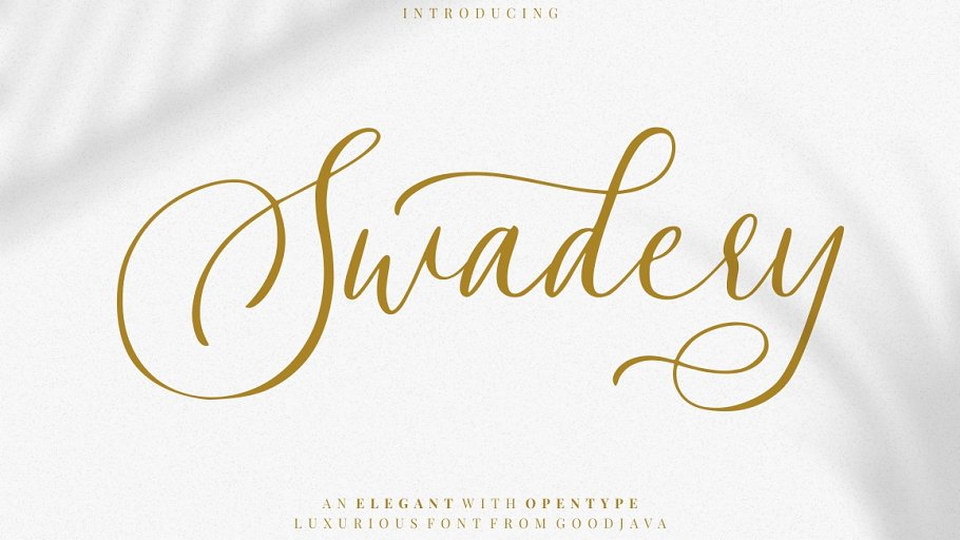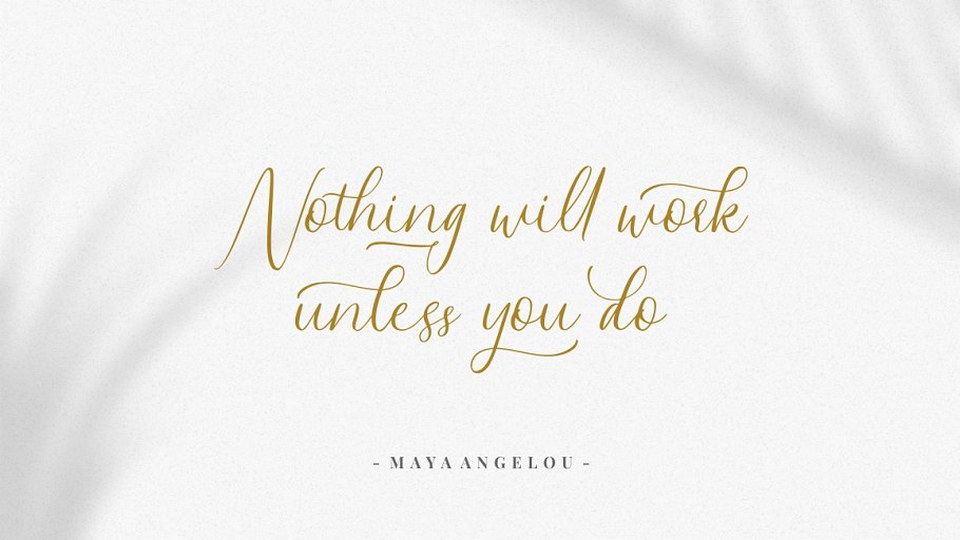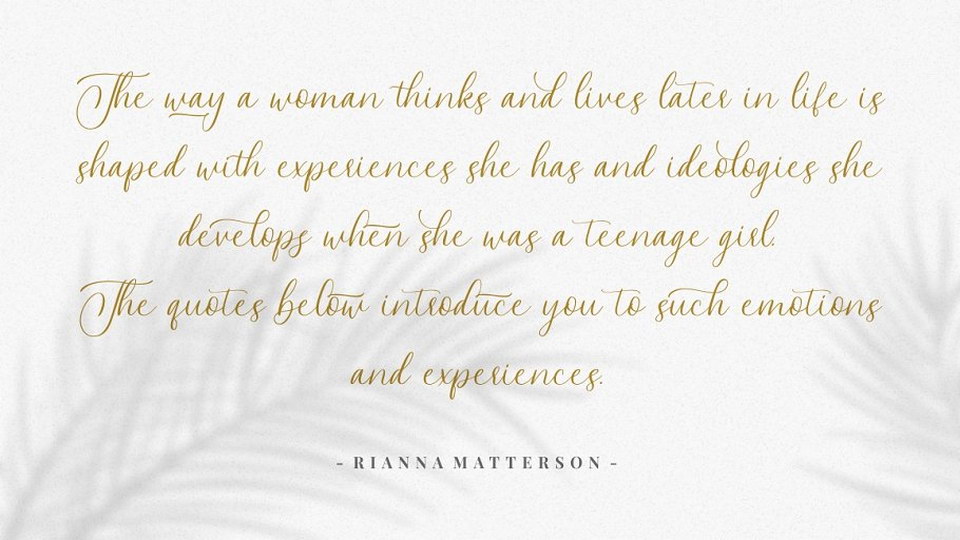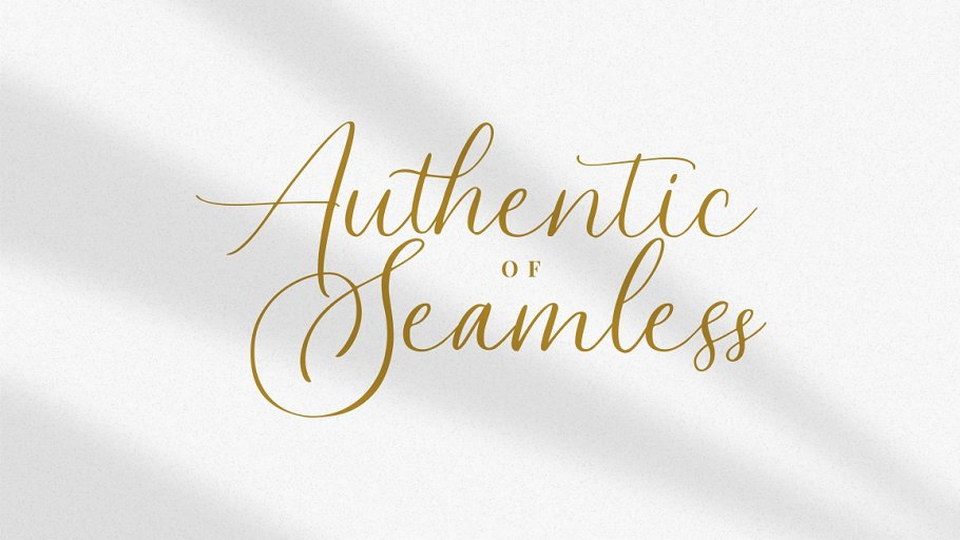
Swadery is a luxury modern calligraphy script with a natural and classy look. It’s perfect for logo, invitation, stationery, wedding designs, social media posts, advertisements, product packaging, product designs, label, photography, watermark, special events or anything.